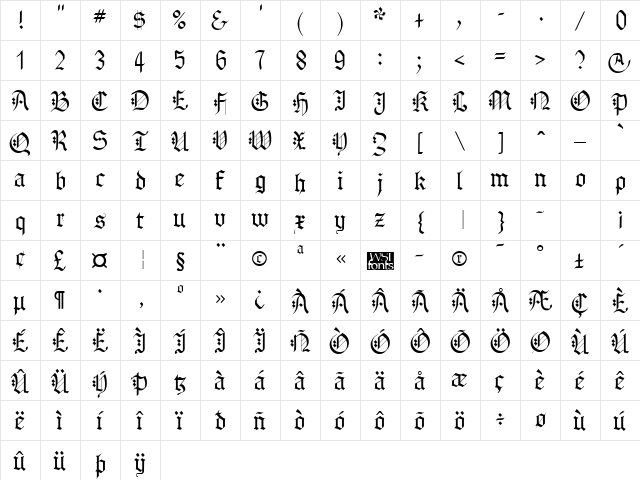
Gothenburg Regular Free Font
Gothenburg Regular
Gothenburg Family
Complete Gothenburg Regular glyph index. Displaying only characters natively supported by Gothenburg Regular font.
Design Context for Gothenburg
Gothenburg is a composed and adaptable typeface that performs quietly and consistently across a wide range of design contexts.